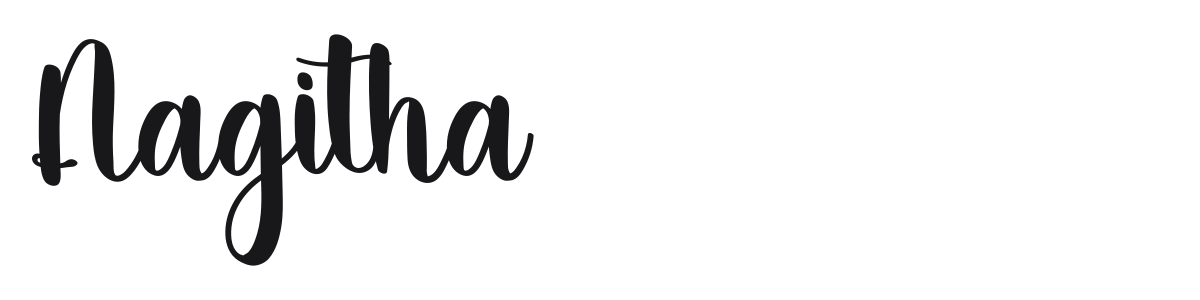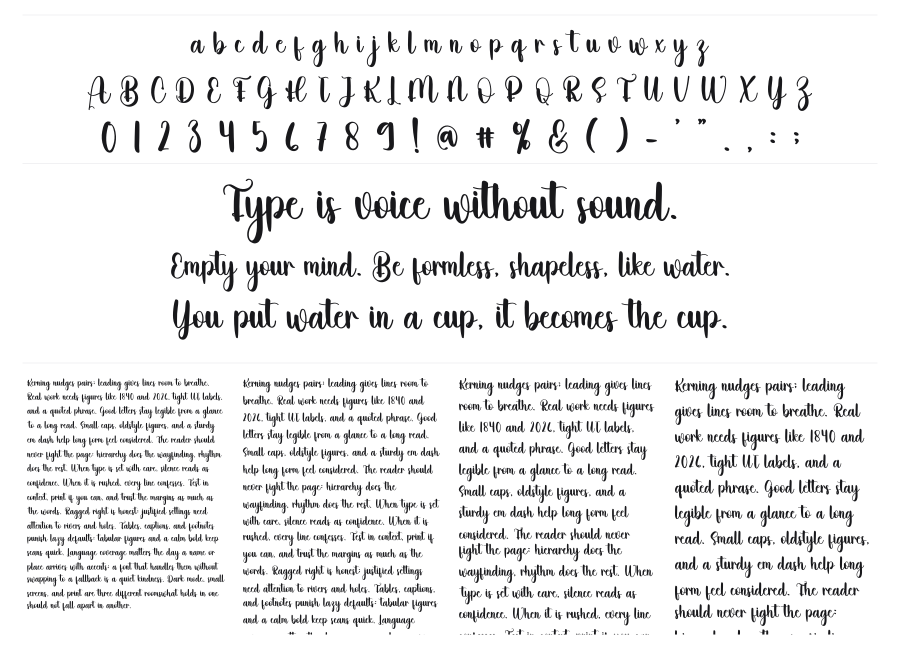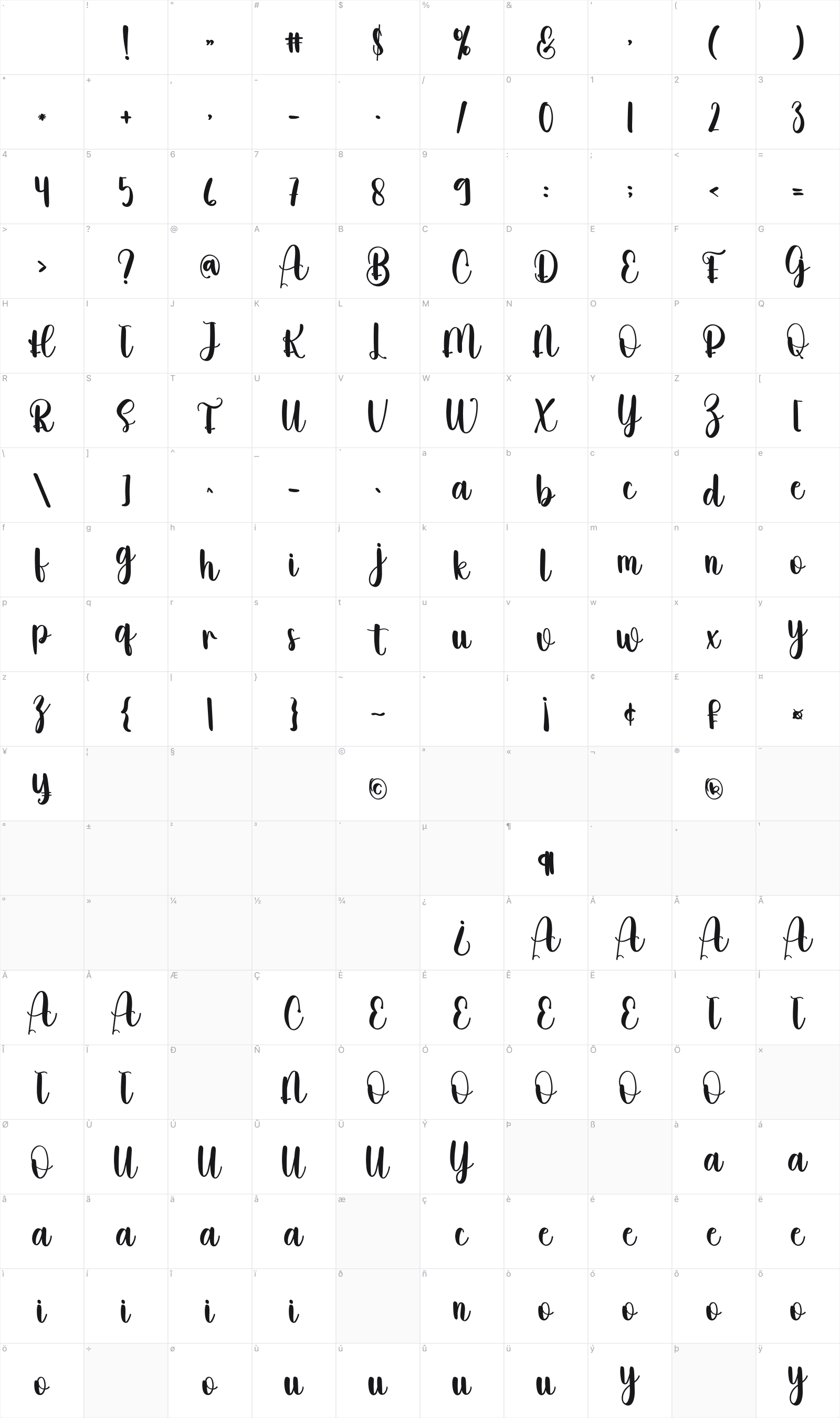
Nagitha
Nagitha is a bold casual script with a lively bouncing baseline and smooth connected strokes that feel hand-lettered without being rough. The medium contrast between thick and thin creates a calligraphic rhythm that reads as warm and confident. It suits branding, packaging, and social graphics where personality is the point.